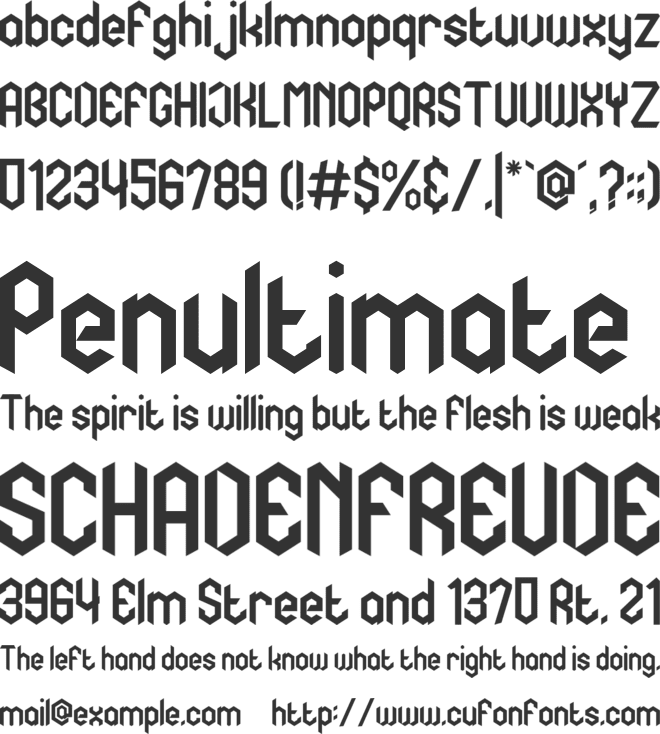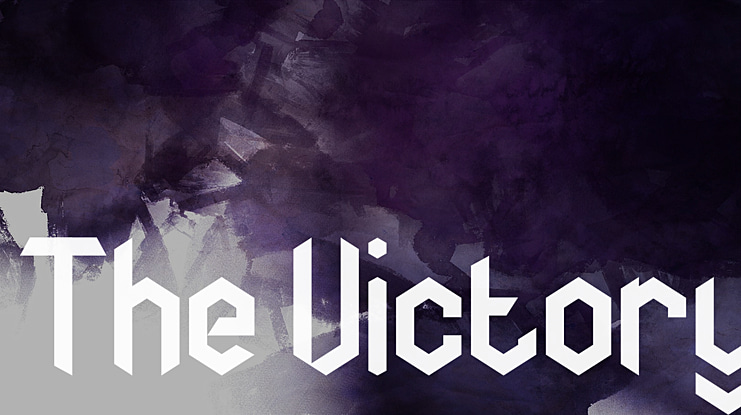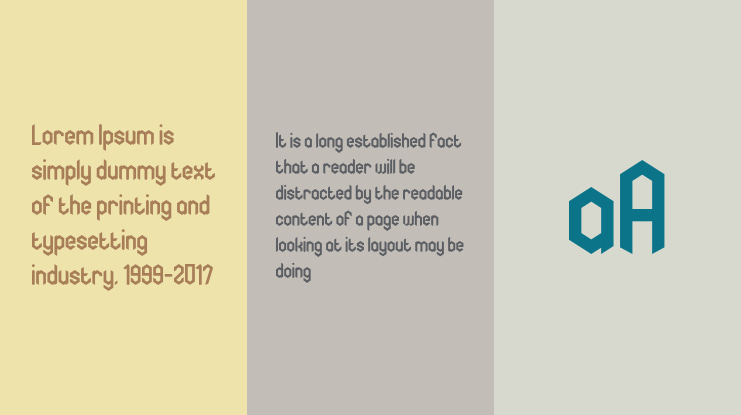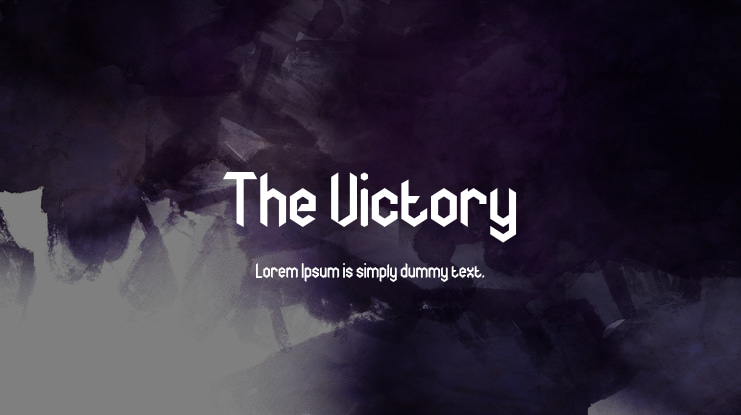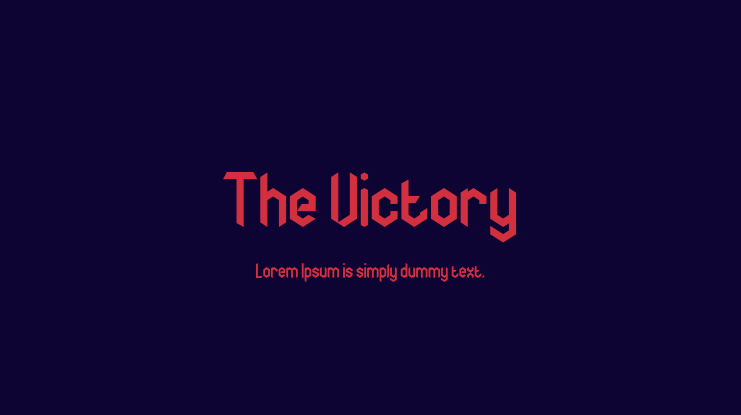
The Victory Font
Introducing our new release, The Victory Games Display Type Font. This typeset is perfect for brand logo, invitations, greeting card, or even any kind of project. With multilingual feature and style variations, this typeface would further enhance the aestethical aspect of your work.Visit our website :https://displaytypefont.com/product/the-victory/